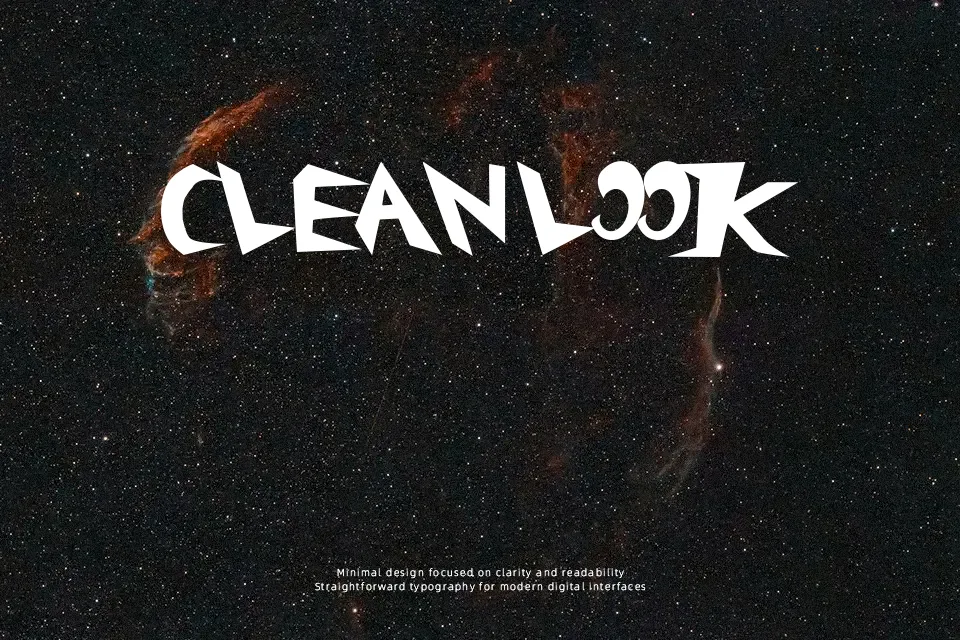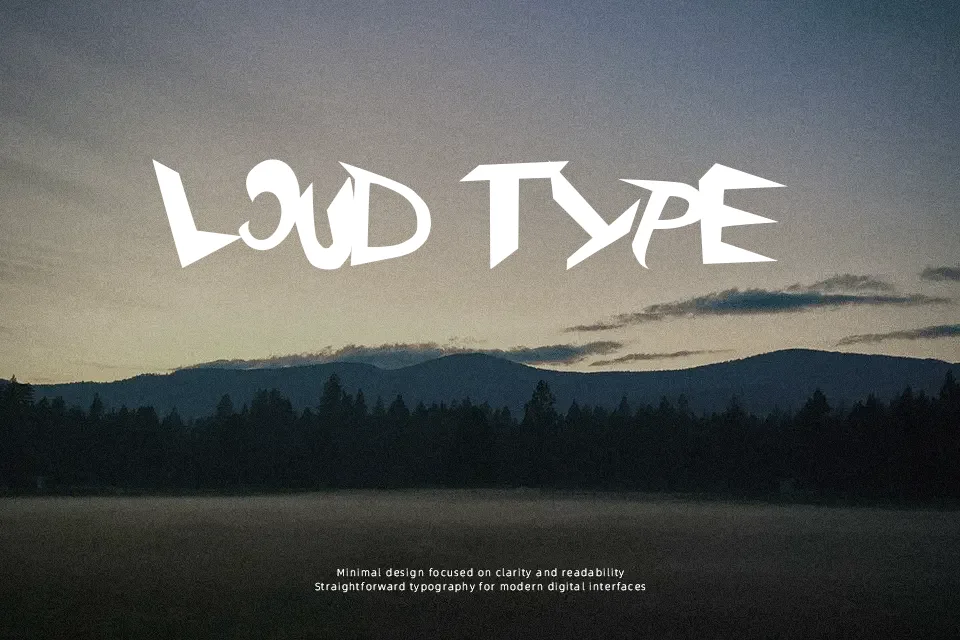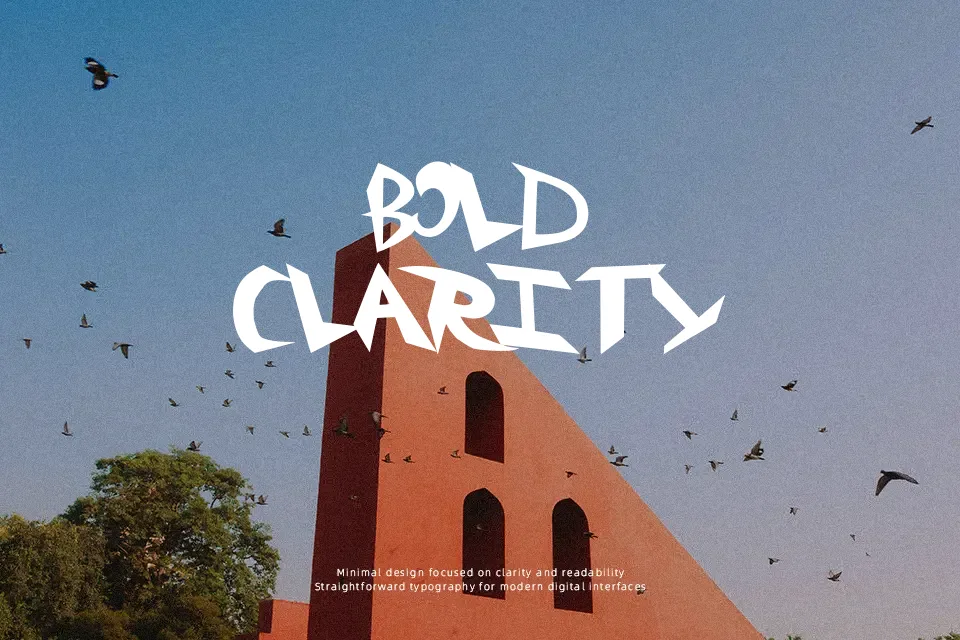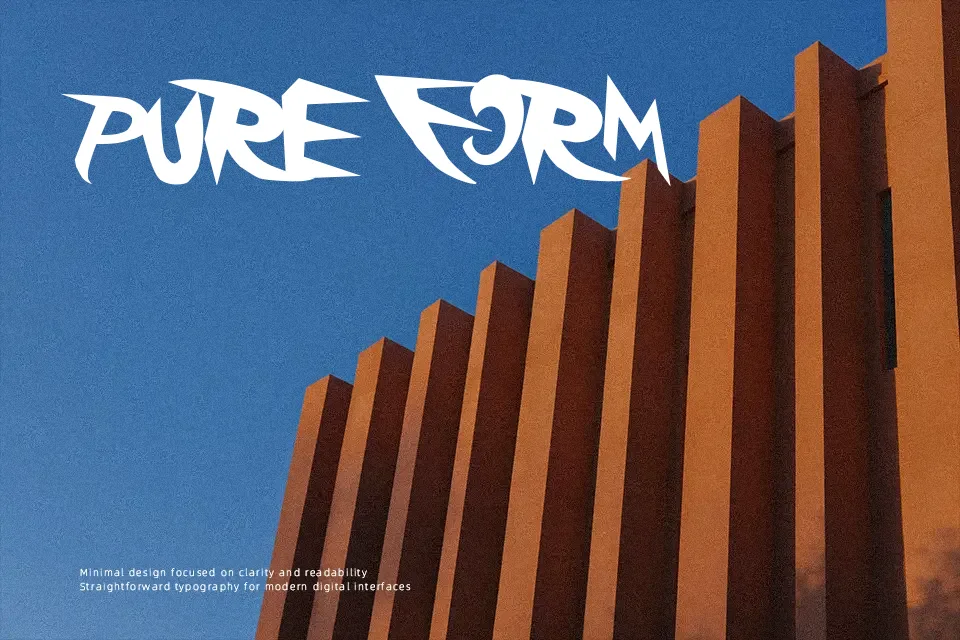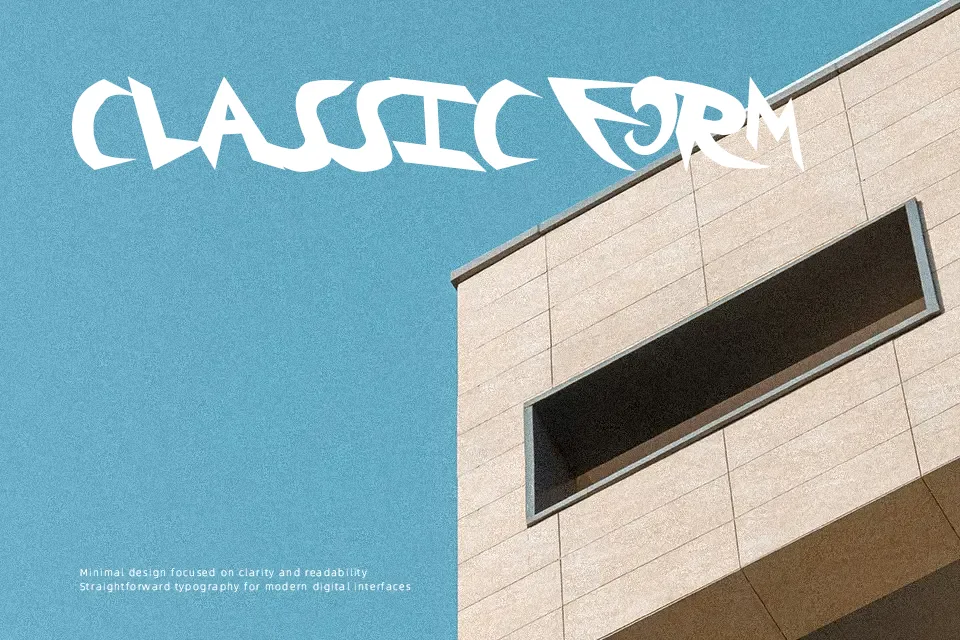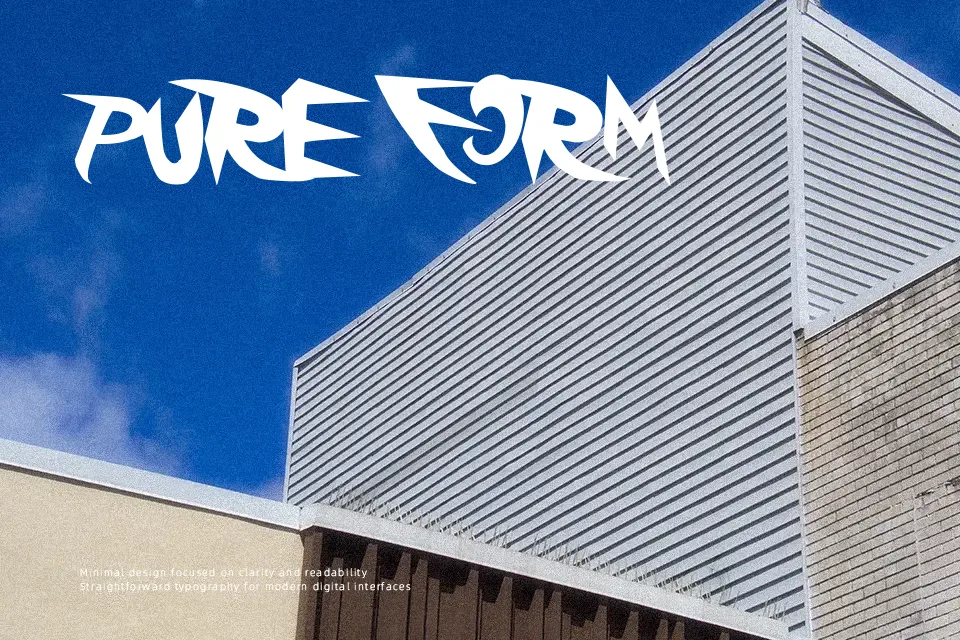
Rockster Font
Heavy, angular strokes define the aggressive architecture of Rockster Font, a bold all-caps display design with a chaotic yet controlled visual rhythm. The sharp terminals and tilted letterforms give the typeface a rugged energy. Built with thick proportions and dense character spacing, the design demands attention in large-scale applications. These heavy shapes perform exceptionally well in dynamic music festival posters, gaming graphics, and impactful branding projects where a raw edge is required. However, the unconventional angles and tight rhythm significantly reduce legibility at smaller sizes. The sharp forms become difficult to process in extended paragraphs, making this design less suitable for editorial body text. Ultimately, the dense spacing helps maintain clarity in larger headlines, ensuring maximum visual impact.
esports team logos
streetwear apparel graphics
bold event headlines
Perfect for gaming, headline, and logo, with a bold and decorative style.